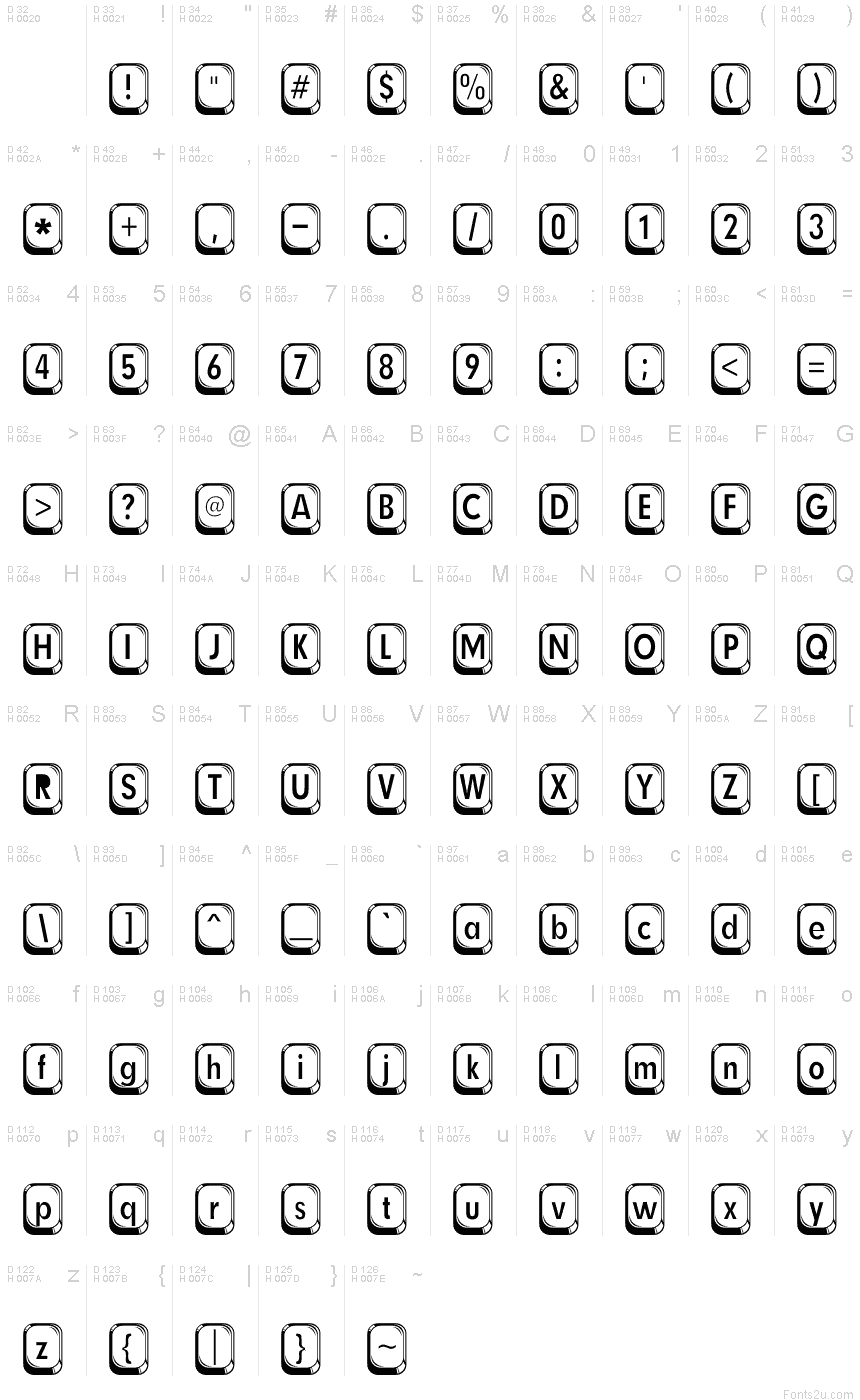
Betsy Flanagan
Betsy Flanagan font by Ray Larabie is a free decorative display font, and its charm comes from those bouncy letterforms tucked into rounded, sticker-like tiles. The heavy black outline and soft corners feel like a label maker got a comic-strip makeover—crisp, punchy, and instantly playful without turning messy.
Using Betsy Flanagan, you’ll get lively headlines that shine on kids’ party invites, café specials, toy packaging, YouTube thumbnails, sticker sheets, app icons, and retro posters. Keep it a bit large so the tile borders stay clear, and pair this free font with a calm sans like Arial or Verdana for body copy to let the bubbly rhythm do the talking.